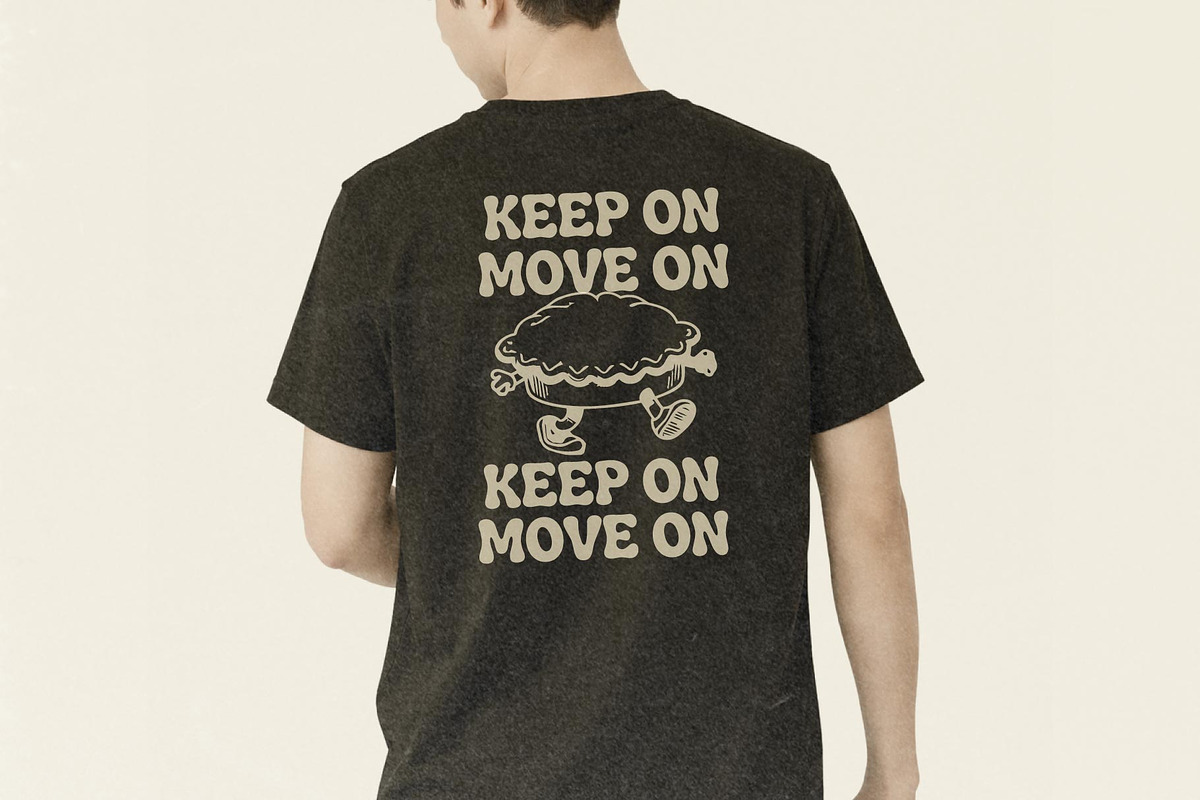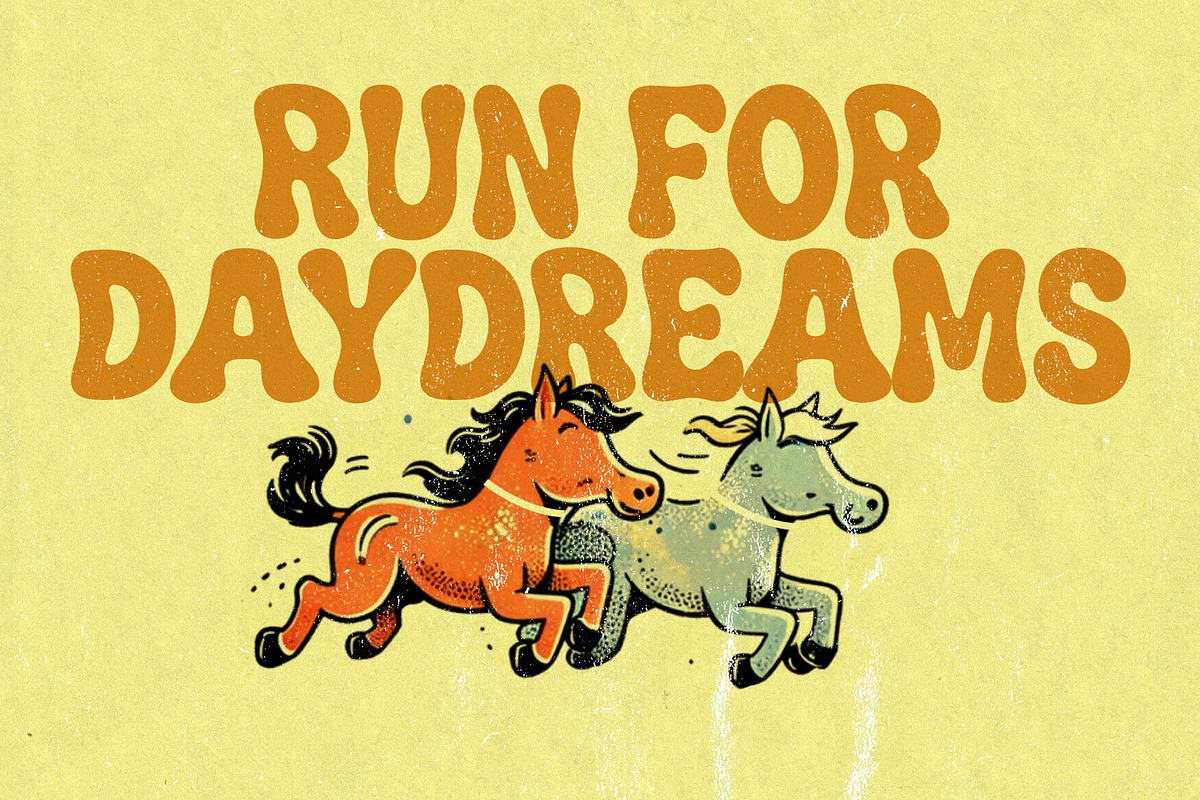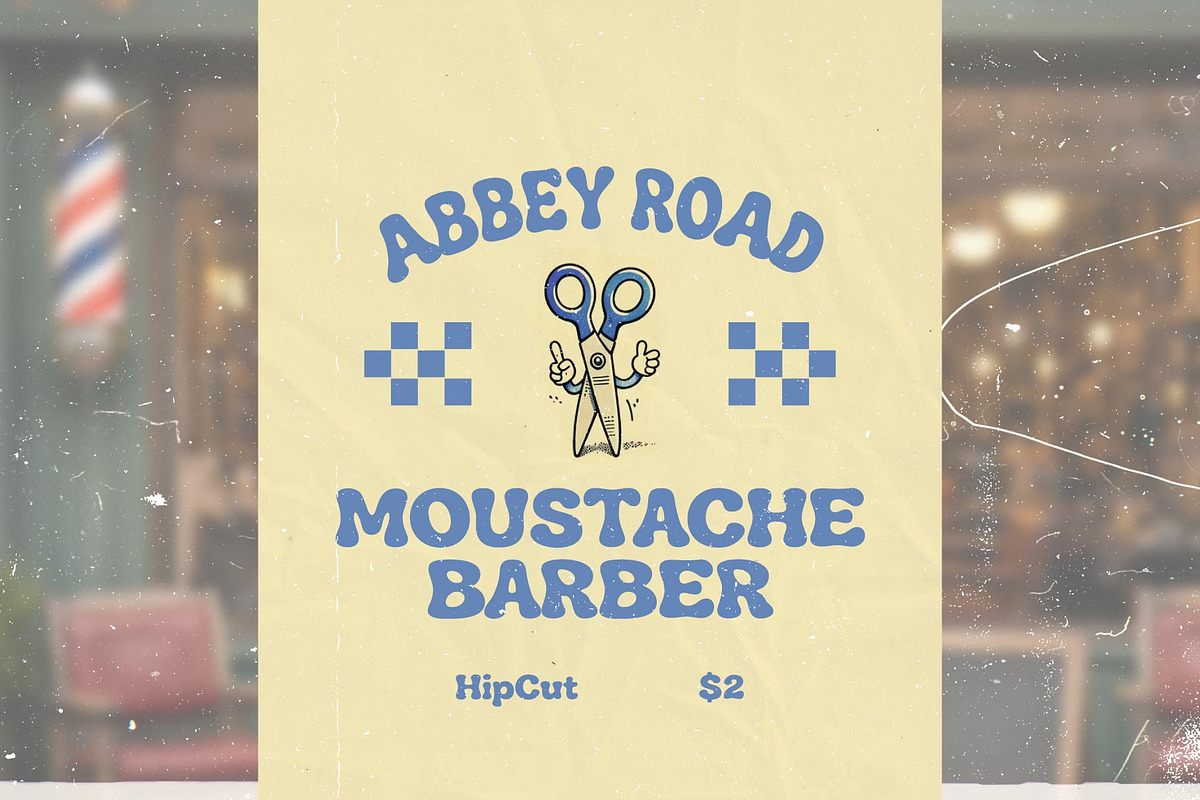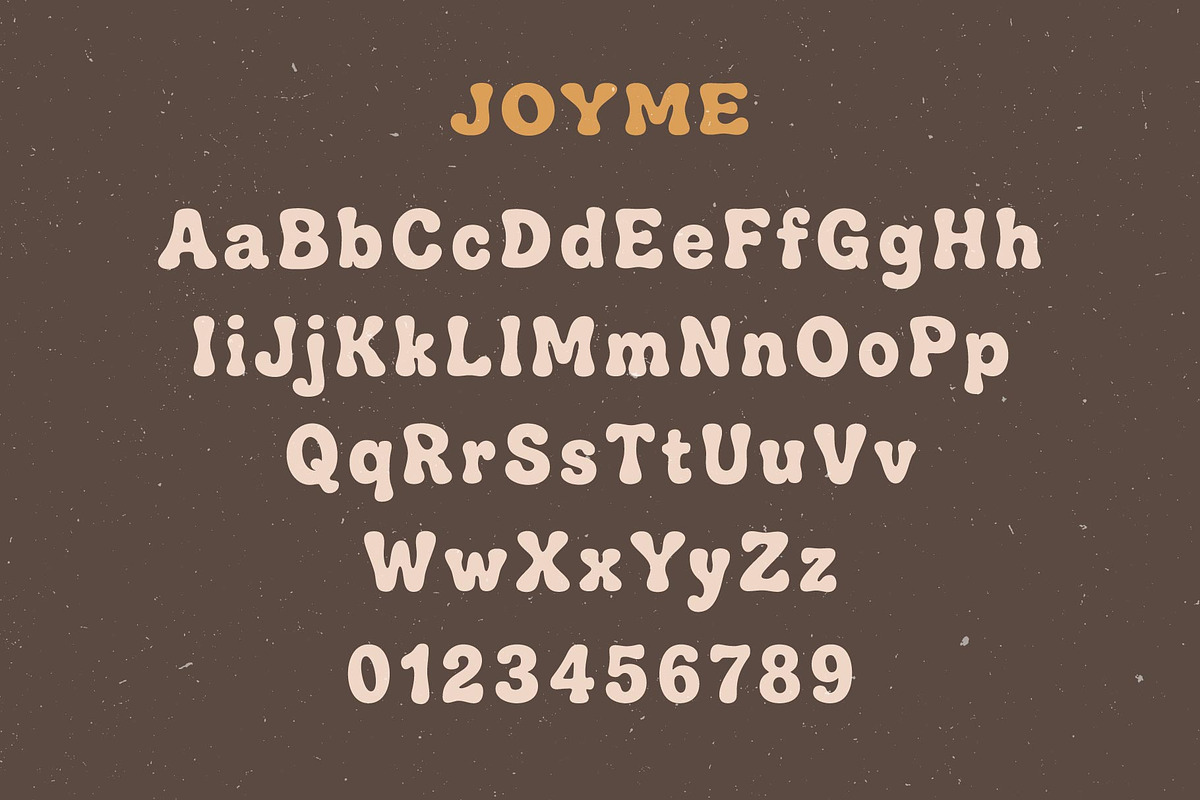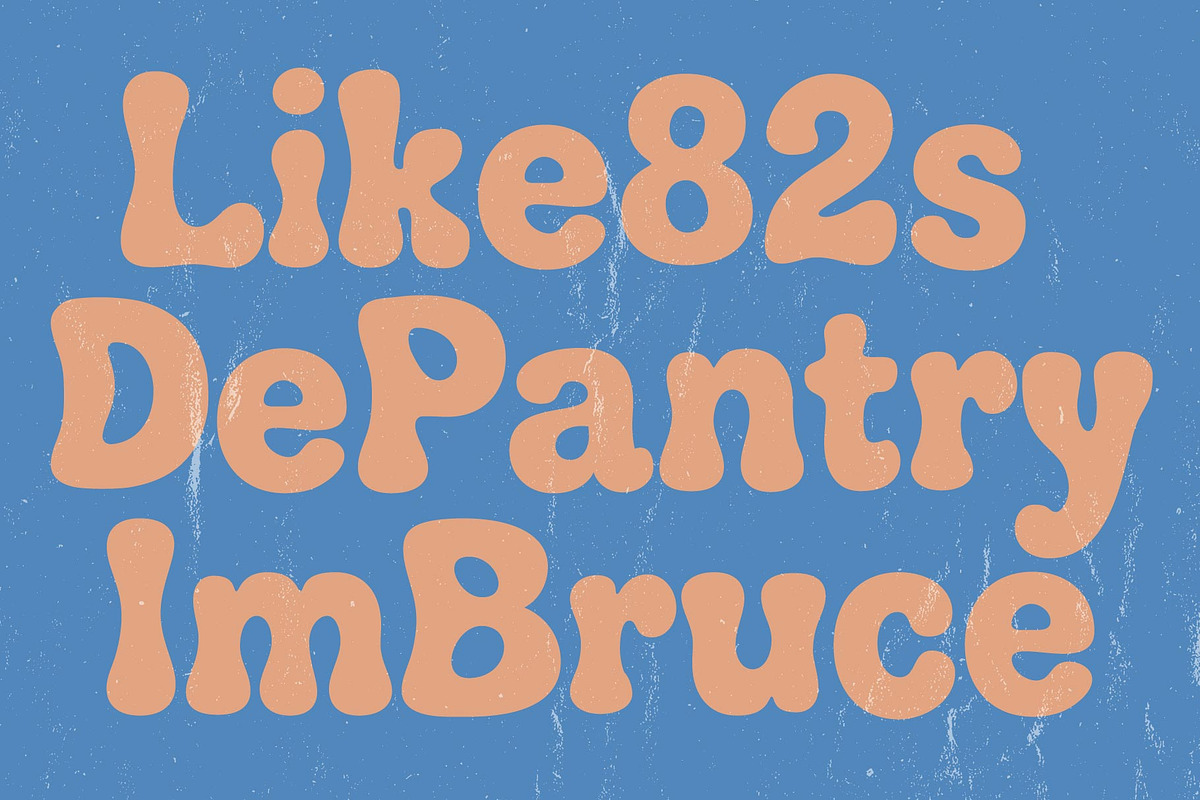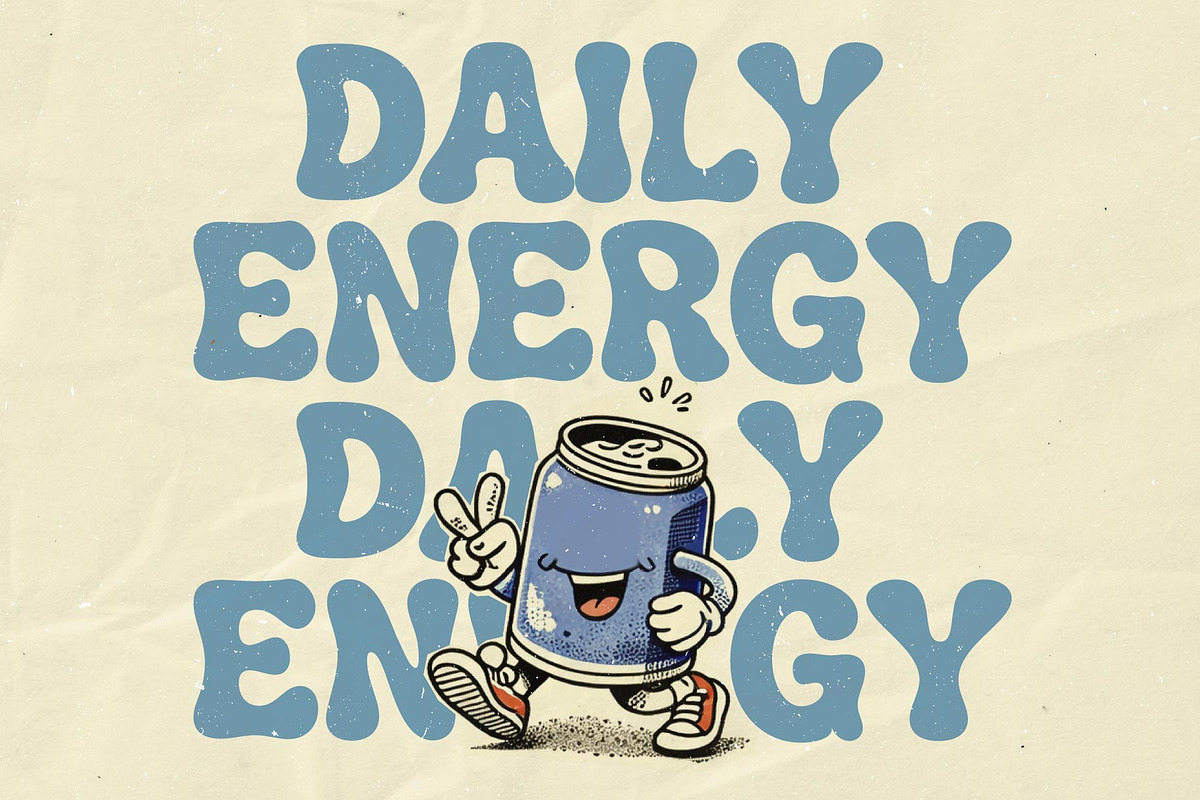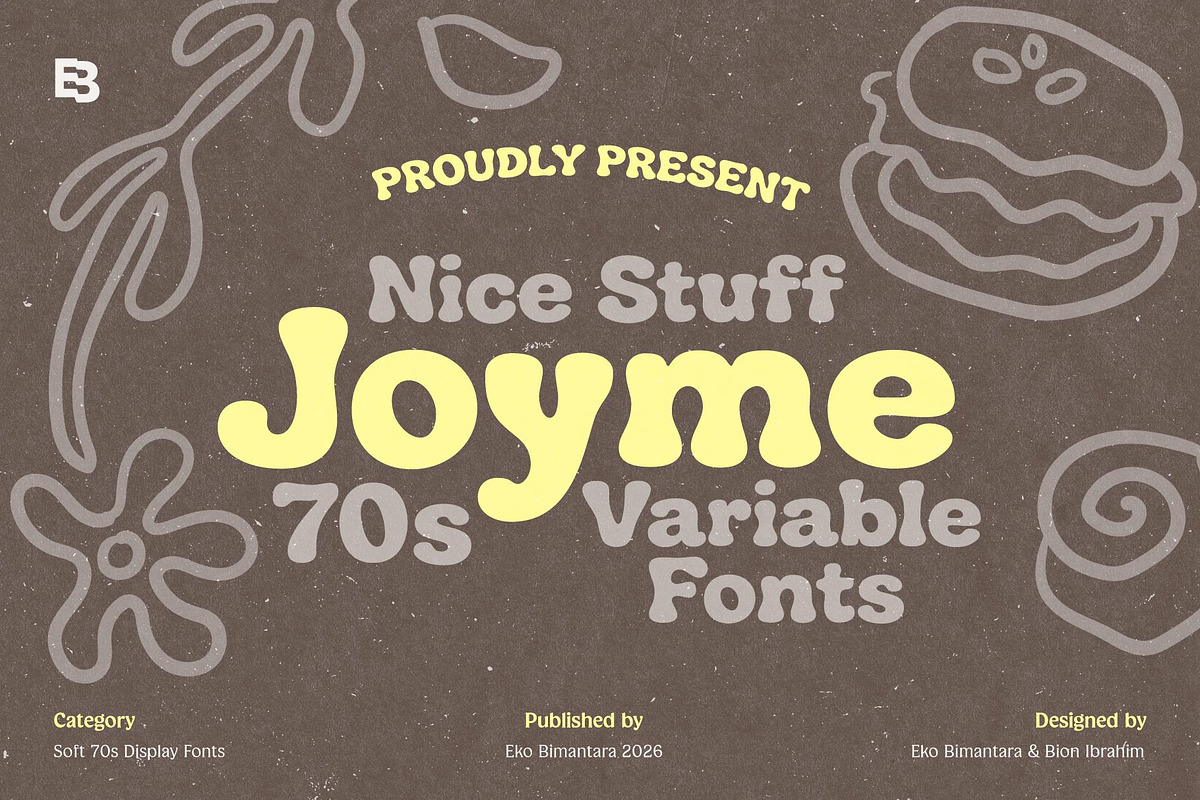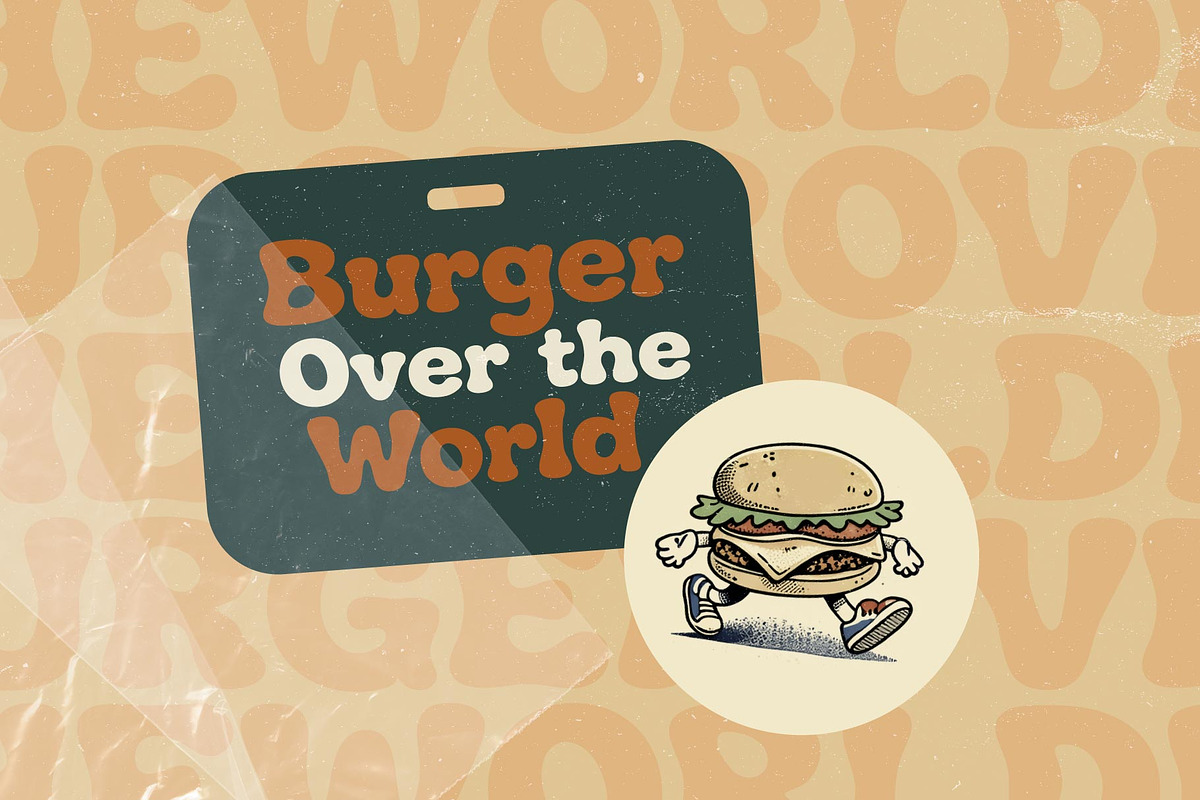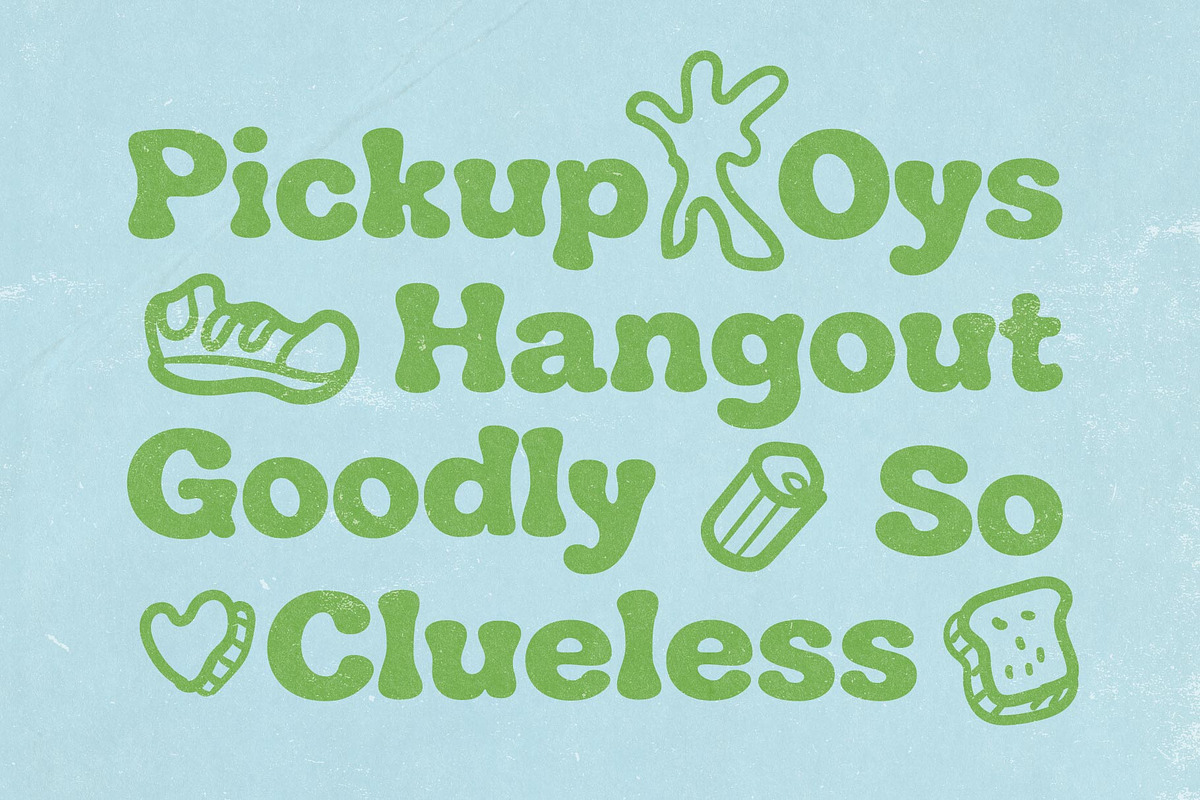
Joyme; Bold 70s Display Fonts
Joyme is a retro soft serif display font that captures the warm and playful spirit of 1970s typography. Featuring smooth curves and rounded serif details, it delivers a friendly yet bold visual tone. Joyme comes in three width styles—Condensed, Normal, and Expanded—giving designers flexibility to create strong typographic hierarchy and expressive layouts. It is well suited for branding, 70s-themed designs, food and drink projects, headers, titling, and various creative applications where a nostalgic yet modern feel is desired.